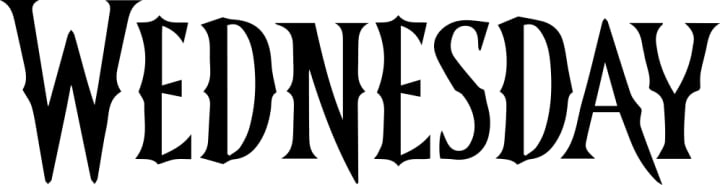
Wednesday Font Netflix
Unveiling the Haunting Origins and Pop Culture Impact of the Wednesday Font: Netflix's Bold Branding Choice
The Wednesday Font has gained popularity in recent years for its unique and spooky design, making it a go-to choice for Halloween-themed designs. Originally created by Spanish graphic designer, Antonio Rodríguez, the font has made its way into pop culture, movies, and TV shows. Its reputation has even caught the attention of Netflix, which decided to use it as part of their branding. In this article, we will explore the origin and design of the Wednesday Font, its impact on popular culture, and Netflix's decision to use it. We will also examine the reception of the font on Netflix, its influence on the design industry, and discuss what the future holds for this iconic font.
Introduction to the Wednesday Font
If you've ever watched a horror movie or attended a creepy Halloween party, you've probably seen the Wednesday Font in action. This iconic font has become synonymous with all things spooky, mysterious, and eerie. In this article, we'll delve into the history and design of Wednesday Font, as well as its impact on pop culture and its recent use by Netflix.
What is the Wednesday Font?
The Wednesday Font is a bold, Gothic-style font that is instantly recognizable. It features sharp, pointed edges and ornate accents that give it a haunting, otherworldly appearance. It was originally created as a display font, meaning it was intended for use in large, eye-catching headings rather than in body text.
History of the Wednesday Font
The Wednesday Font was created in 1995 by Phil Bracco, a graphic designer and typeface designer based in New Jersey. It was named after Wednesday Addams, a character from the popular TV show and movie franchise The Addams Family. The font was originally released as shareware, meaning it could be used for free but required payment if used for commercial purposes.
The Origin and Design of the Wednesday Font
The Designer of the Wednesday Font
Phil Bracco, the designer of the Wednesday Font, has a background in graphic design and typography. He has created several other typefaces, but the Wednesday Font is by far his most famous and enduring work. Bracco has stated that he designed the font to be "bold and intimidating," with a focus on creating sharp angles and intricate details.
The Design Process of the Wednesday Font
According to Bracco, the design process for the Wednesday Font was a laborious one. He started by sketching out rough drafts of the letters, then refining them until he was happy with their shapes and proportions. He then digitized the letters using software like Adobe Illustrator and tweaked them until they were ready for release.
Wednesday Font in Pop Culture
Use of the Wednesday Font in TV Shows and Movies
The Wednesday Font has become a staple in horror movies and TV shows, where it is often used to create a spooky, ominous atmosphere. It has been used in classic horror films like The Blair Witch Project and The Ring, as well as in more recent TV shows like American Horror Story and Stranger Things.
The Association of the Wednesday Font with Halloween
The Wednesday Font has also become closely associated with Halloween, thanks in part to its use in countless Halloween-themed party invitations, posters, and decorations. Its spooky, macabre appearance makes it the perfect font for anything Halloween-related.
Netflix's Decision to Use Wednesday Font
Reasons for Choosing the Wednesday Font
In 2021, Netflix unveiled a new logo that prominently featured the Wednesday Font. The company stated that they chose the font because it "captures the thrill of entertainment and the excitement of the unknown." The font's bold, striking appearance makes it a perfect fit for a company that is all about breaking the mold and taking risks.
Implementation of the Wednesday Font on Netflix
Netflix's use of the Wednesday Font is most prominent in its promotional materials, including posters, trailers, and social media graphics. It is also used in the opening credits of some Netflix original shows and movies. While the font has been met with some criticism from design experts, it has nonetheless become a recognizable part of the Netflix brand.5. The Reception of Wednesday Font on Netflix
Public Reaction to the Wednesday Font on Netflix
When Netflix released The Addams Family Series in 2019, it came with a new typeface for the title card and captions - the Wednesday Font. The public had mixed reactions to the font. Some viewers loved the bold and quirky design, while others found it hard to read and distracting. Some even claimed that it ruined the viewing experience. However, the font quickly gained popularity on social media, with many fans sharing memes and tweets showcasing their love for Wednesday Font.
Critical Response to the Wednesday Font on Netflix
Design critics and professionals also had differing opinions about the Wednesday Font. Some applauded the design for being unique and memorable, while others criticized it for being too gimmicky and lacking in elegance. Many designers pointed out that the font's thick strokes and angled shapes may not be suitable for long-form reading or small sizes. However, everyone agreed that the font succeeded in creating a strong brand identity for The Addams Family, which was the primary goal.
Impact of Wednesday Font on the Design Industry
Influence of the Wednesday Font on Other Designs
Despite its polarizing reception, the Wednesday Font has made an impact on the design industry. Its bold and quirky style has inspired other designers to experiment with unconventional typography and break away from traditional fonts. The font's popularity on social media has also influenced meme culture and helped establish it as a recognizable meme font. The font's creator, Alejandro Paul, has also gone on to create other popular fonts such as Honey Script and Burgues Script, which have gained widespread use in branding and advertising.
Wednesday Font's Contribution to Design Trends
The Wednesday Font's design has contributed to the growing trend of vintage and retro typography in the design world. Its bold and blocky style, reminiscent of mid-century advertising and signage, has become popular for branding and marketing campaigns. The font's popularity has also proven that unique and memorable typography can be a significant aspect of a brand's identity.
Conclusion and Future of Wednesday Font
Summary of Wednesday Font's Significance
The Wednesday Font's impact on popular culture and the design industry is undeniable. Despite its mixed reception, the font has succeeded in creating a strong brand identity and establishing itself as a recognizable meme font. Its unique design has also influenced other designers and contributed to the trend of vintage and retro typography.
What's Next for the Wednesday Font?
As for the future of the Wednesday Font, it is unclear if it will continue to gain widespread use or fade into obscurity. However, its impact on design trends and its significant presence in popular culture ensure that it will remain a memorable font for many years to come. Whether it will inspire further experimentation with unconventional typography or become a relic of the past, the Wednesday Font has left its mark on the design industry. In conclusion, the Wednesday Font has earned its place in design history for its unique and distinctive style. Its popularity has led to its use in various forms of media, including Netflix. Its impact on popular culture has been significant, influencing design trends and inspiring other designers. As we look to the future, it will be interesting to see how the Wednesday Font continues to evolve and inspire designers around the world.
FAQ
What is the Wednesday Font?
The Wednesday Font is a unique and spooky typeface created by Spanish graphic designer, Antonio Rodríguez. The font is inspired by Tim Burton's movie, The Nightmare Before Christmas.
What is the history of the Wednesday Font?
Antonio Rodríguez designed the font in 2015, and it quickly gained popularity for its unique design. The font's name is derived from the fact that Rodríguez completed the design on a Wednesday.
What impact has the Wednesday Font had on popular culture?
The Wednesday Font has been used in various forms of media, including movies, TV shows, and advertisements. Its spooky and distinctive design has made it a popular choice for Halloween-themed designs.
How has Netflix used the Wednesday Font?
Netflix decided to use the Wednesday Font as part of its branding in 2021. The font's unique design and association with pop culture made it a perfect fit for the streaming giant's brand.